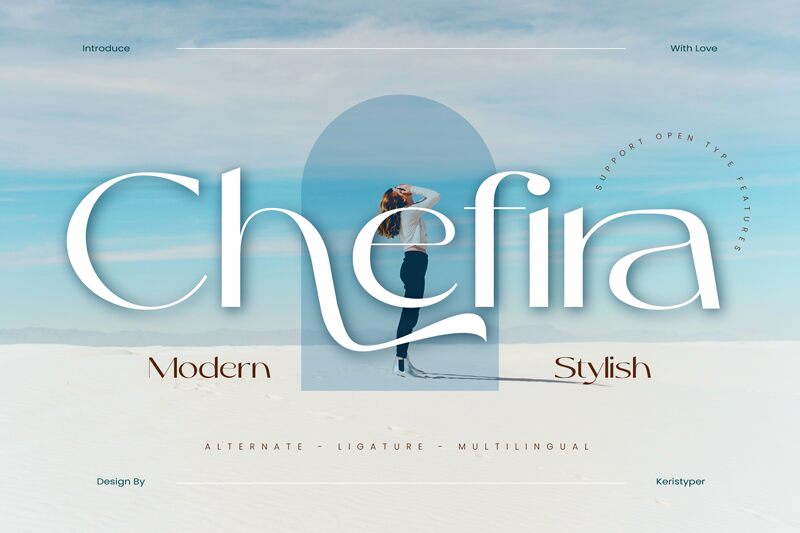
Chefira
Chefira font is a sophisticated sans serif by Tezar Tantular, a clear and contemporary choice for your design projects. The free font combines a modern style with elegant details which makes it wonderfully suitable for different needs that require authenticity and simpleness.